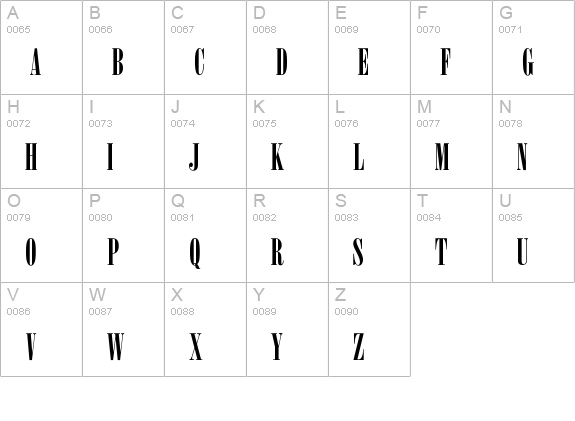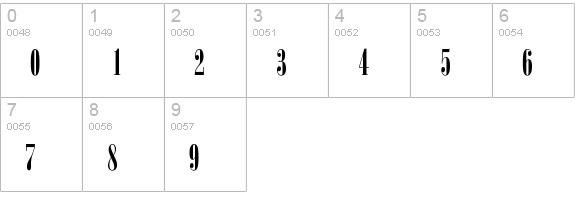
Arsis is a modern and elegant font that exudes sophistication and style. With its clean lines and balanced proportions, Arsis is perfect for a wide range of design projects, from branding to editorial design. This versatile font family includes multiple weights and styles, allowing you to create eye-catching designs with ease. What sets Arsis apart is not only its timeless appeal but also the fact that it is available for free. Yes, that's right – you can download Arsis for free at FontsMarket.com. Whether you're a seasoned designer looking to add a fresh touch to your work or a beginner exploring the world of typography, Arsis is a fantastic choice that won't break the bank. Don't miss out on the opportunity to enhance your designs with the beauty and versatility of Arsis font. Download it today and let your creativity soar!